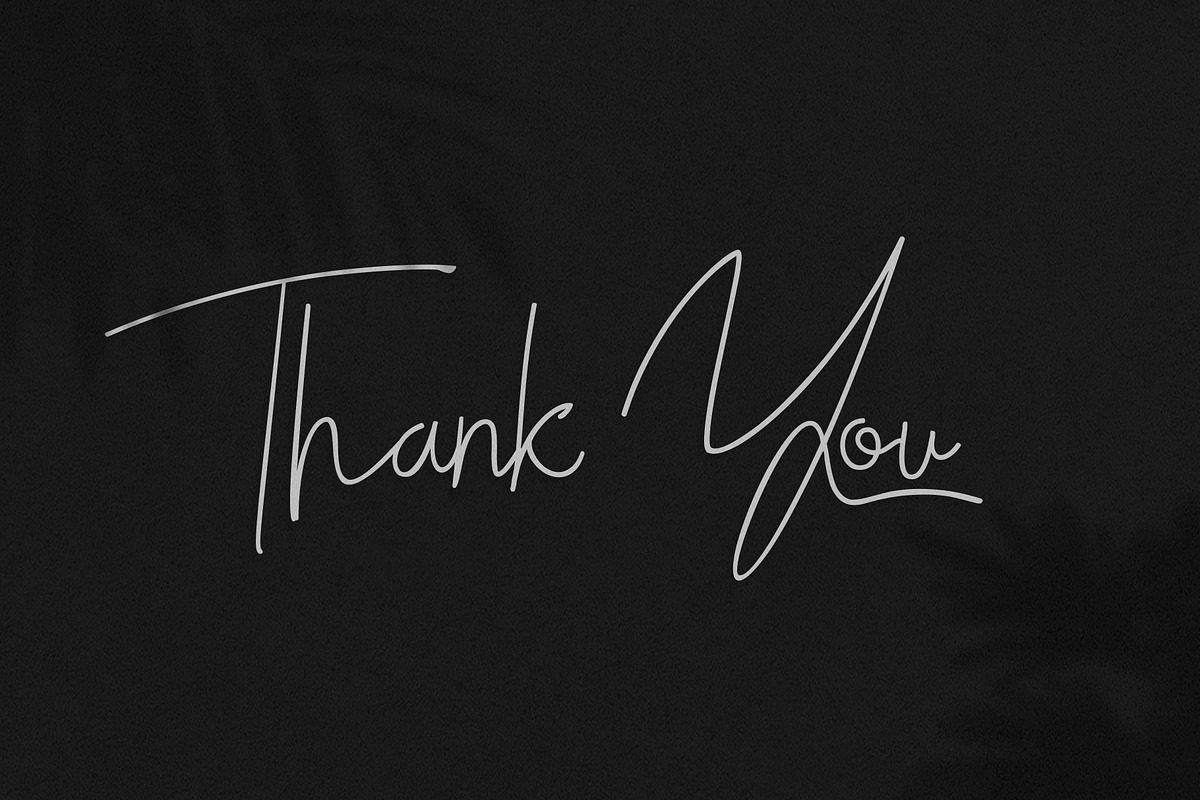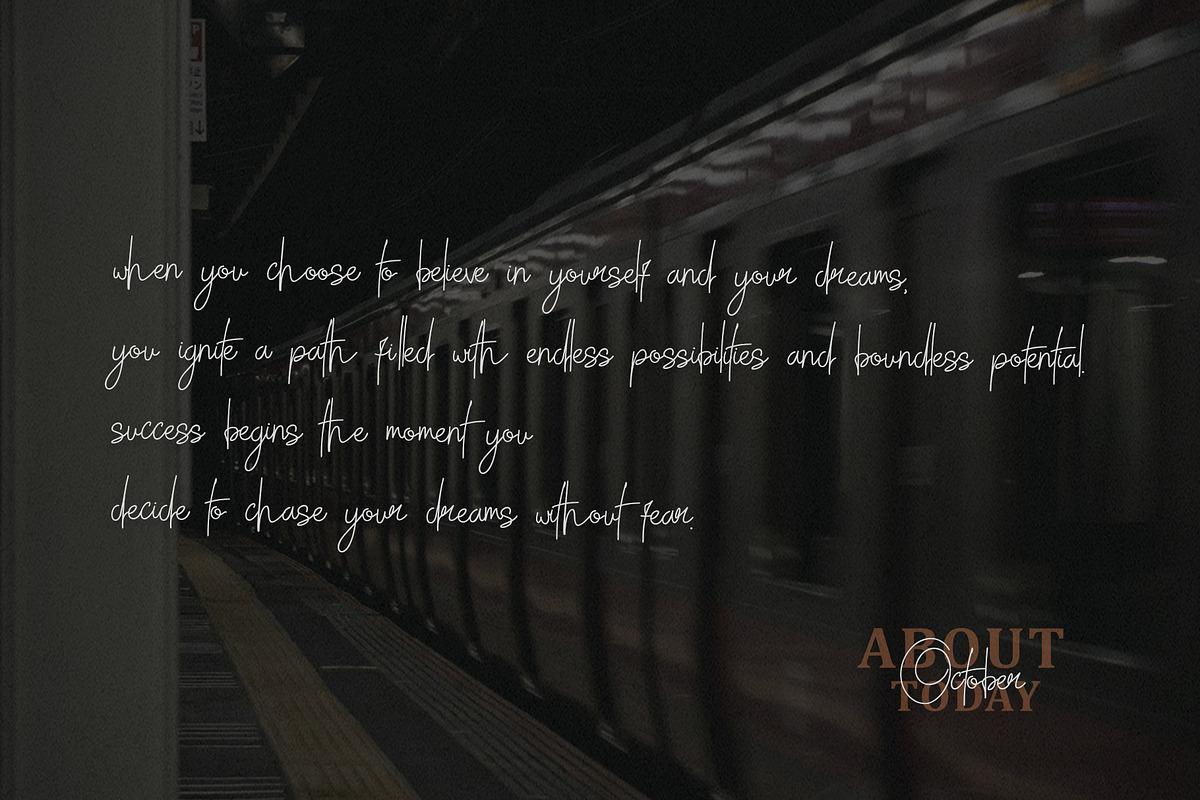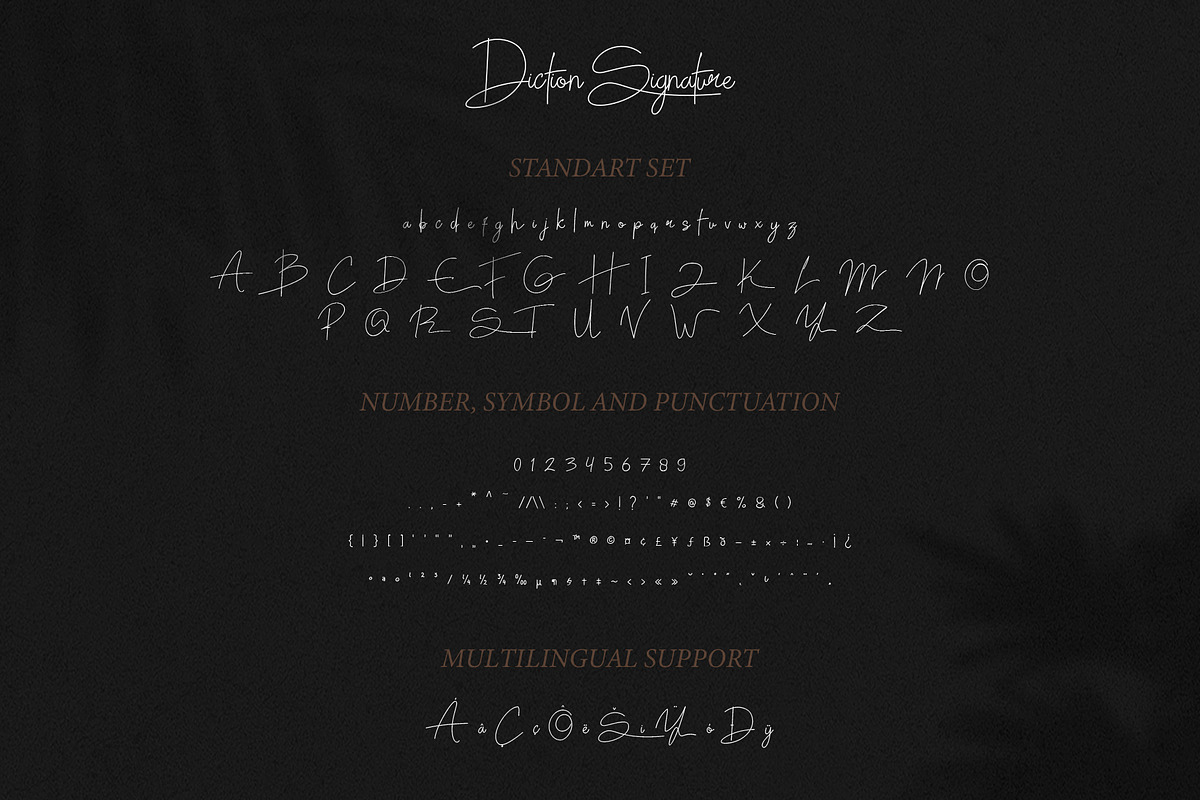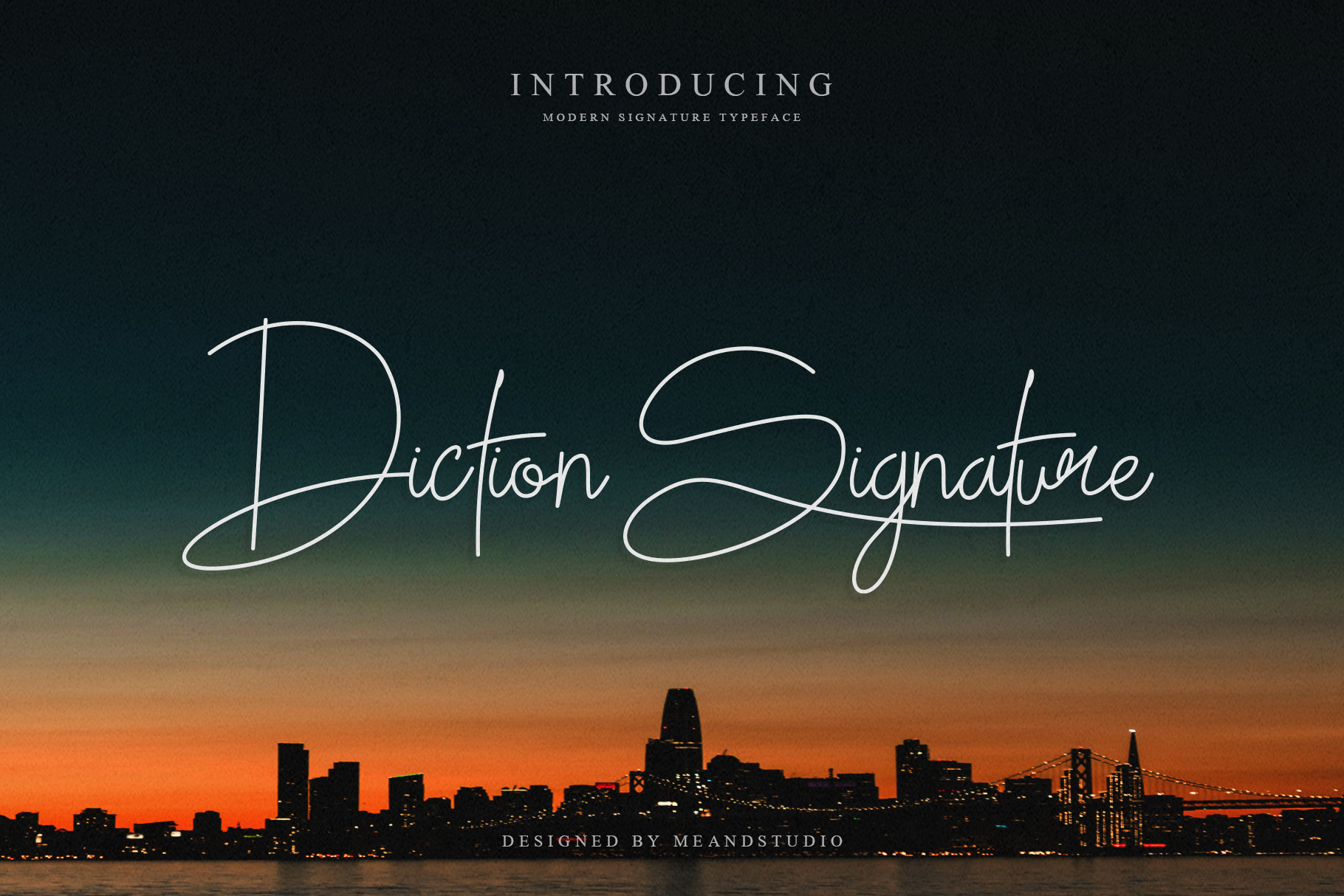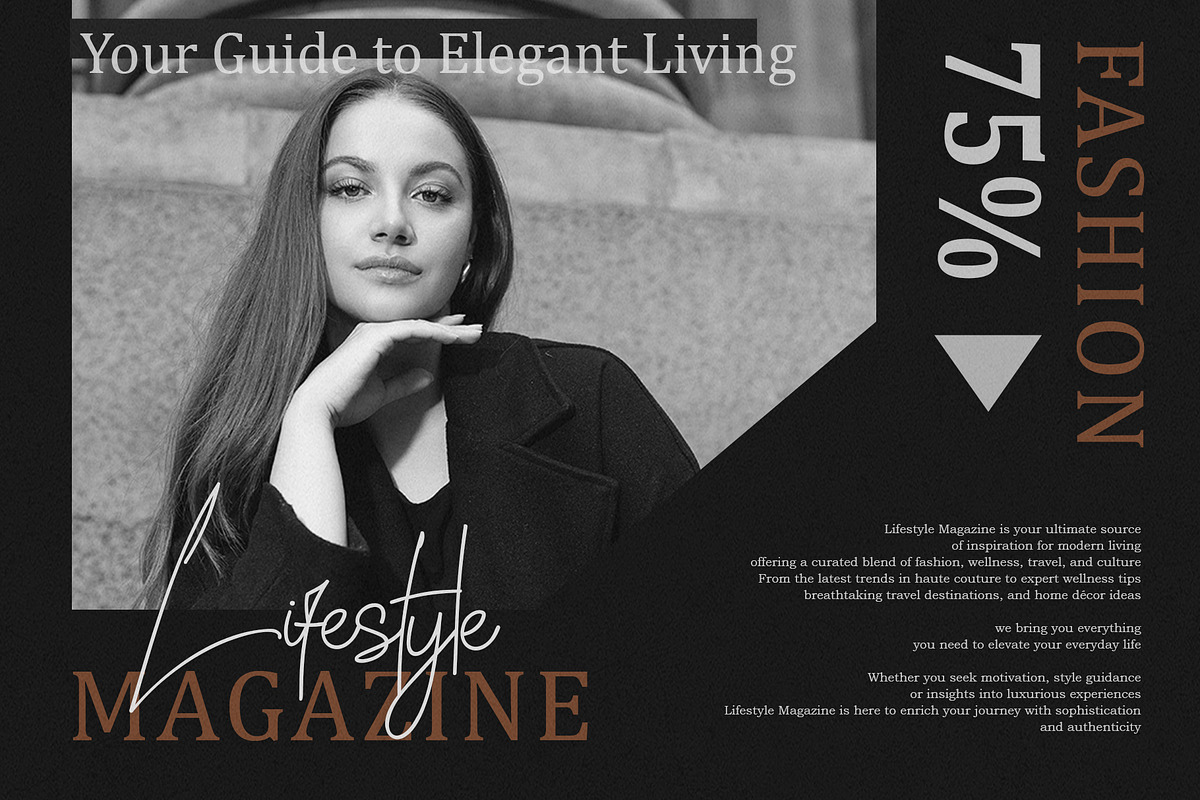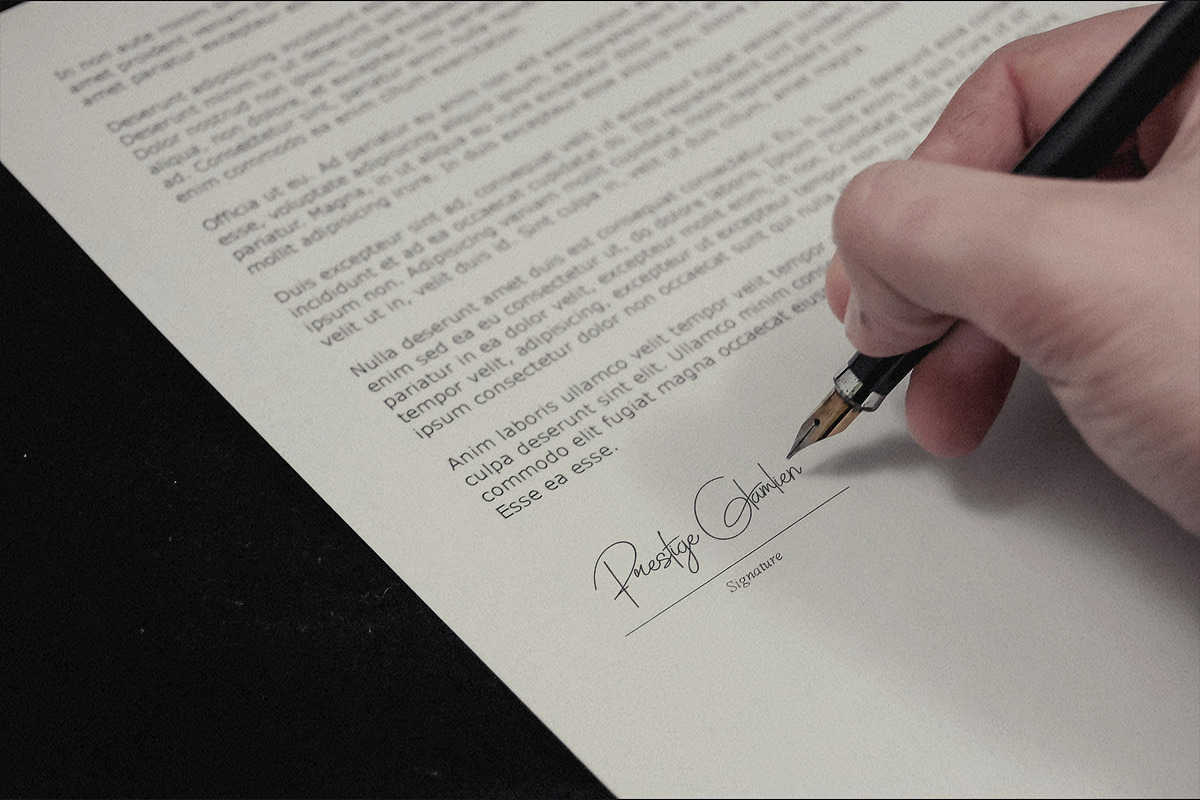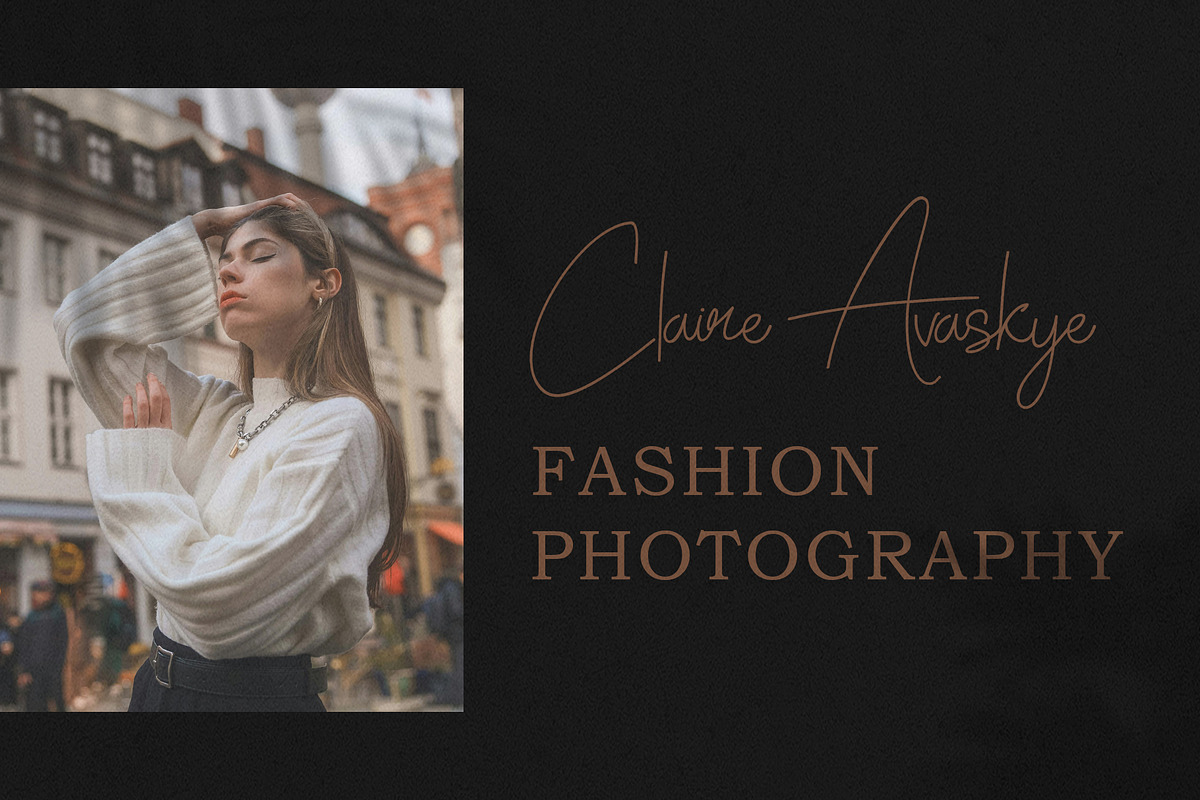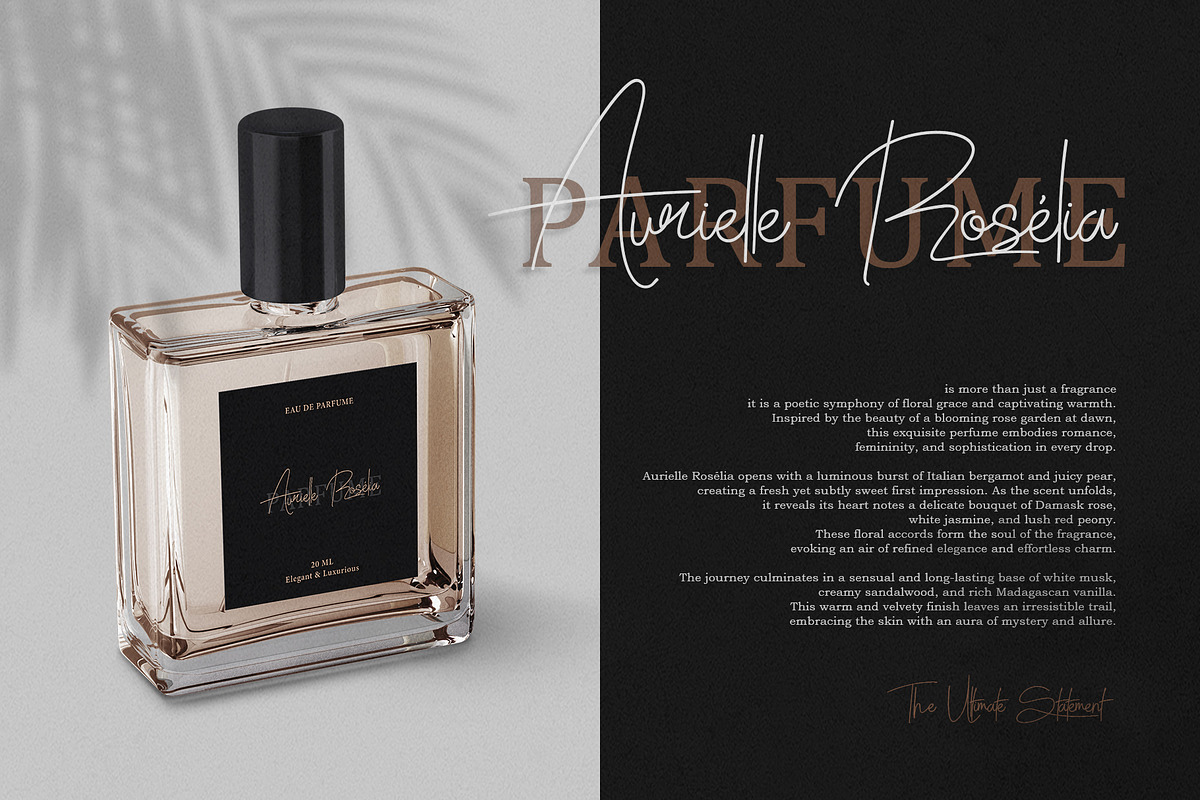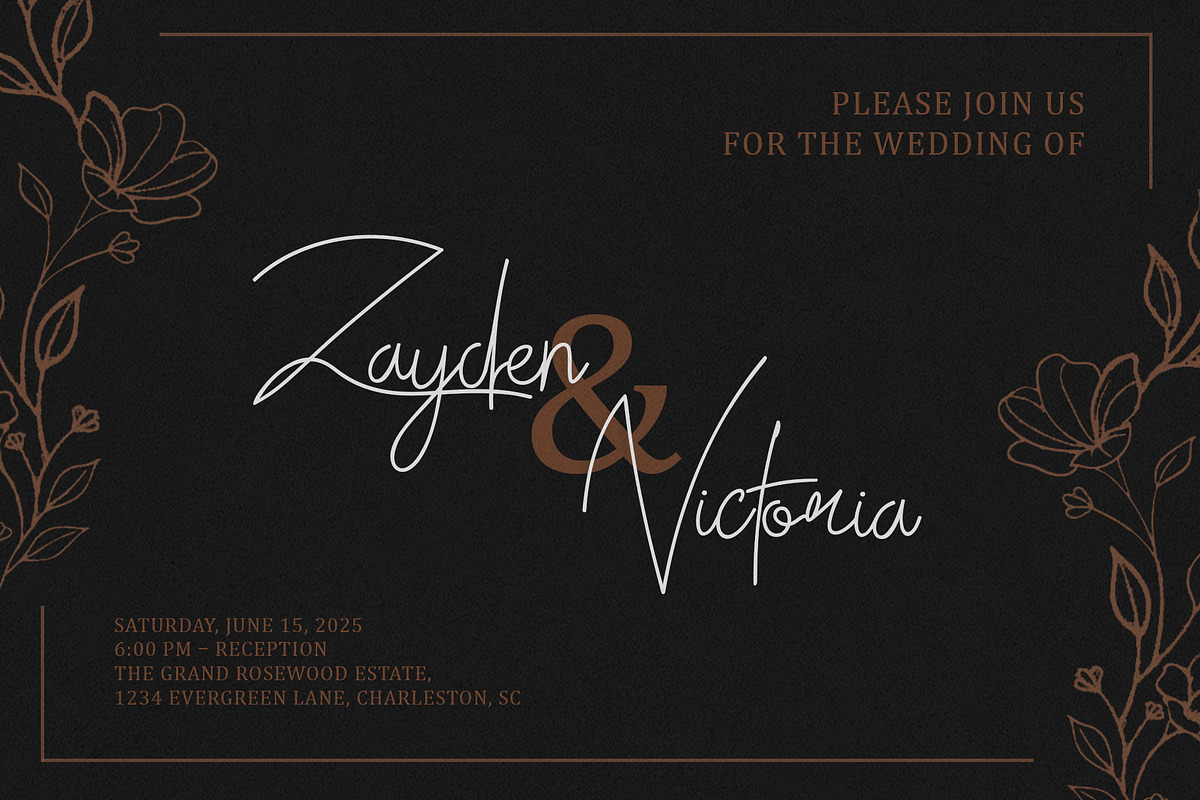
Diction Signature – Handwritten Font
Introducing Diction Signature, a stylish and elegant handwritten font that exudes modern charm and sophisticated flair. Designed with a natural flow and smooth curves, this font is ideal for personal branding, elegant logos, wedding stationery, social media graphics, product packaging, and much more.
Diction Signature includes a complete standard character set (uppercase and lowercase), numbers, punctuation, symbols, and extensive multilingual support. Every stroke is crafted to maintain a signature feel, ensuring your designs look high-end and authentic.
Uppercase & lowercase letters
Numbers, punctuation & symbols
Multilingual support (including accents)
Personal and business branding
Logo design
Wedding invitations
Social media posts
Quotes & blog headers
Product packaging
Editorial design